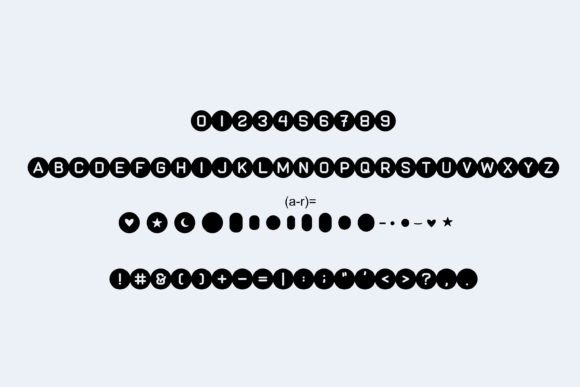
Best Friends Forever Font
Introducing Best Friends Forever, a bead-inspired font that’s as fun and playful as friendship bracelets! Each letter is crafted to resemble colorful beads, bringing back nostalgic vibes of DIY jewelry-making with your besties. Perfect for creating designs that need a cute, youthful, and crafty touch, this font is ideal for kids’ projects, party invites, and anything that celebrates friendship. Best Friends Forever will add a pop of creativity and joy to all your designs!